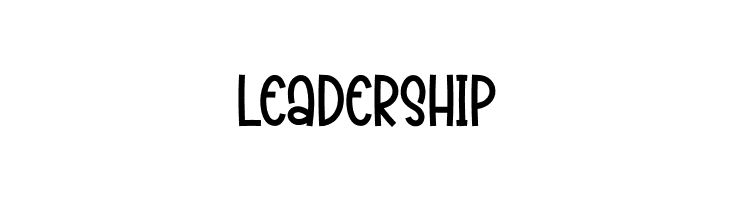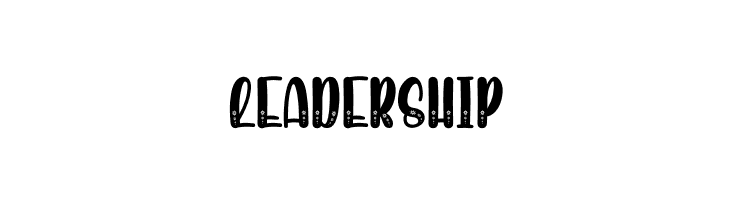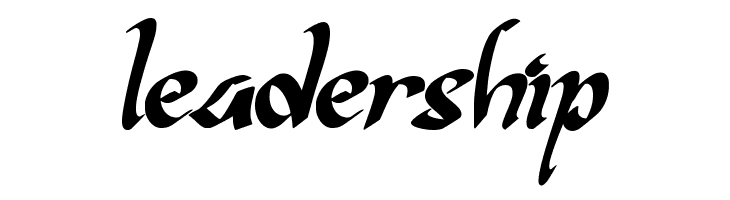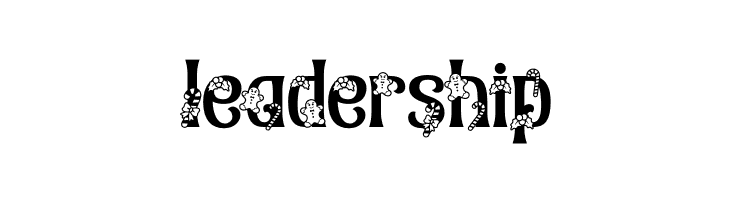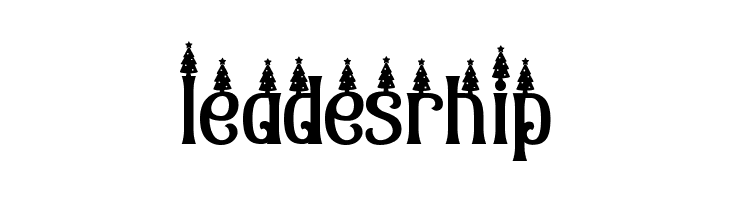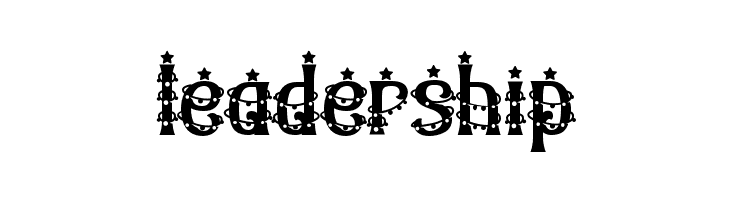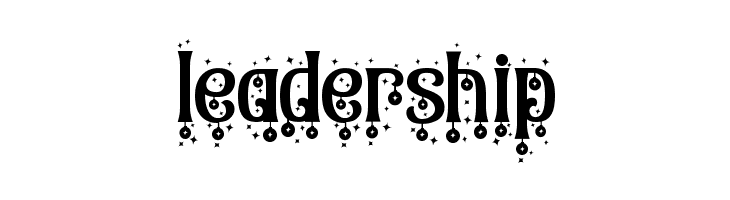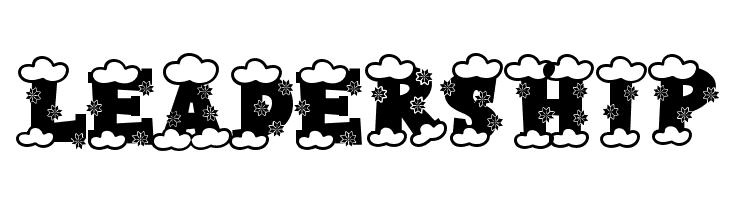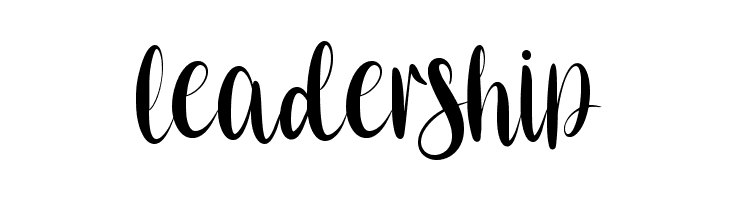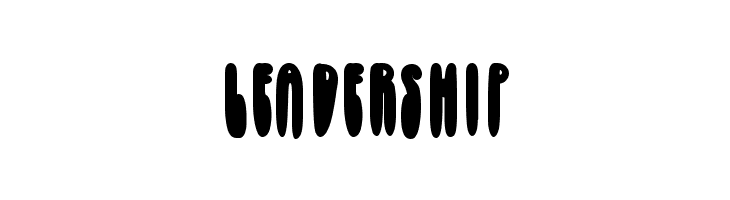
Festive, decorative display font with snowflake accents.
A bold, playful font with rounded, festive characters ideal for holiday themes.
A playful, festive font with bold, rounded characters and decorative inline elements.
A bold, playful handwritten font with rounded, consistent strokes.
A bold, playful script font with a handwritten style.
Rounded, playful sans-serif with a hand-drawn feel.
An elegant, flowing script font with intricate loops and flourishes.
A decorative script font with festive star embellishments, perfect for holiday themes.
A festive decorative font featuring charming Christmas-themed symbols.
A fun, decorative sans-serif font with a festive, hand-drawn style.
Casual handwritten font with rounded, playful forms.
A bold, playful script font with a festive and dynamic style.
Festive, cookie-themed decorative font with bold, whimsical shapes.
Festive decorative font with star and ornament details.
Festive decorative font with stars and string lights for a holiday feel.
Decorative holiday font with Christmas tree accents and playful curves.
A bold, playful script font with smooth, flowing curves.
A playful, festive script font with elegant loops and swirls.
A festive, cursive script font with a playful and elegant style.
A bold, italicized script font with a festive and playful style.
Playful, bold script with hand-drawn, festive style.
Dynamic, brush-style handwritten script with energetic flow.
A decorative, high-contrast script with whimsical, hand-drawn qualities.
Bold, decorative script with festive, handwritten flair.
Bold, snow-capped decorative font with festive winter elements.
A playful, bold font with a whimsical, hand-drawn style.
A bold, condensed, playful display font with rounded forms.
A playful and whimsical font with smooth, flowing lines and slightly irregular shapes.
A decorative font with geometric, elongated letterforms and high contrast strokes.
A playful, handwritten font with smooth curves and a whimsical style.
A decorative font featuring festive Christmas-themed icons with bold outlines.
A bold, decorative font with star-like embellishments, perfect for festive designs.
Ornate, whimsical script with decorative swirls and bold lowercase forms.
A lively, expressive handwritten font with fluid, cursive strokes.
A whimsical, hand-drawn font with tall, narrow characters and festive star accents.